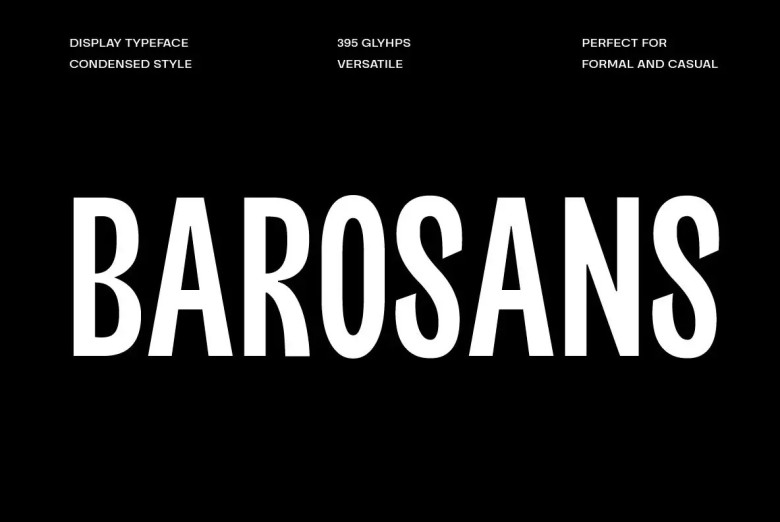
Barosans Font
Barosans Condensed Font is a contemporary compressed display typeface with an elegant, simple style and slim grave font design that creates modern professionalism. Ideal for display designs like posters, headlines and print layouts. Barosans Fonts also come equipped with sophisticated looks that add beautiful visual elements in any style!
Barosans Display Font